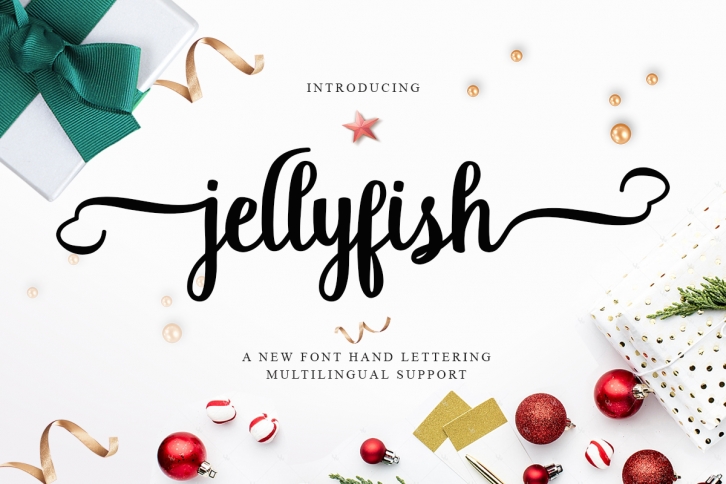
Jellyfish Script is a gorgeous font that was realeased on September 10, 2019. The font can be used in many style contexts and design environments. Perfect for invitations, magazines, websites, logos, and more! It was designed by Best Font Studio and the file size is 20.54 MB. Thanks for checking out this font!